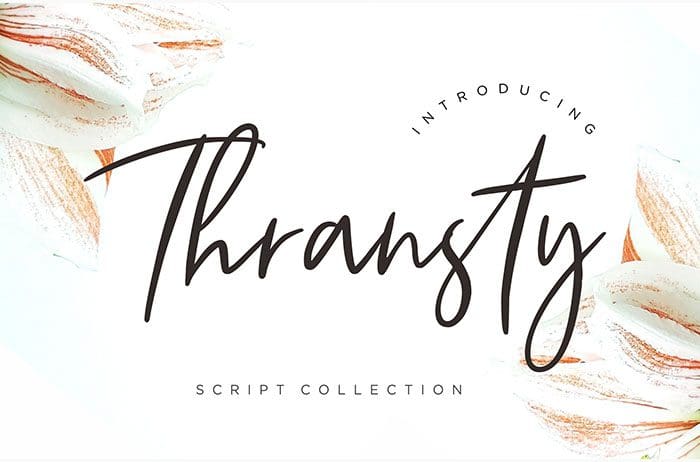
Thransty Script Font
Thransty is a script font collection for those who need handwriting taste on your latest project. Perfect for branding projects, logos, and more. Thanks to Creatype Studio for sharing this font! Take a look at this portfolio for more of his stunning fonts.